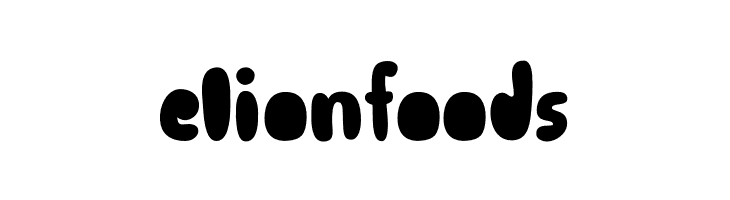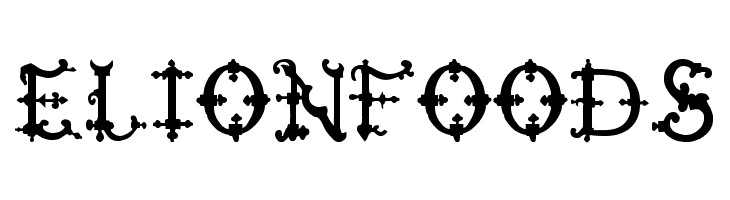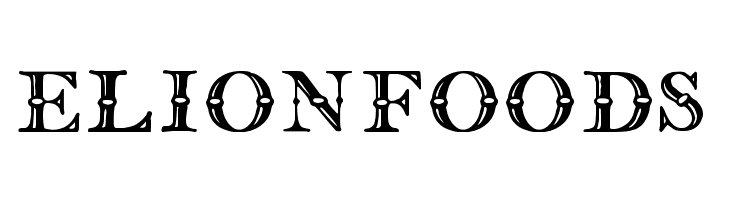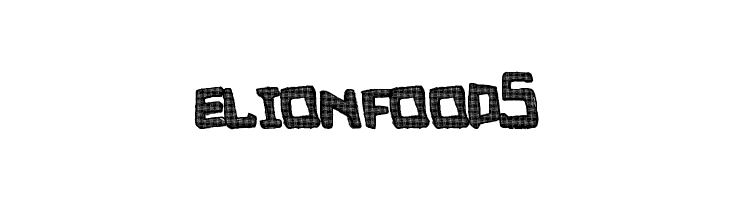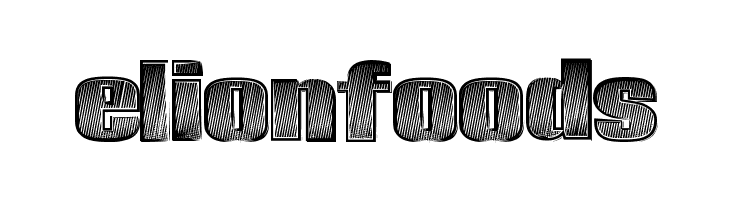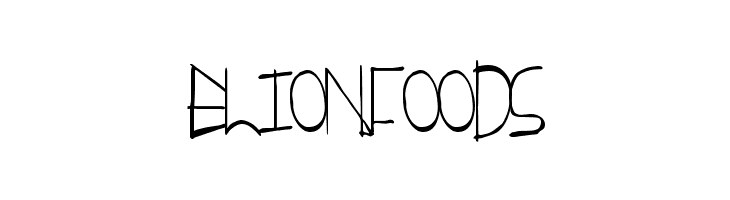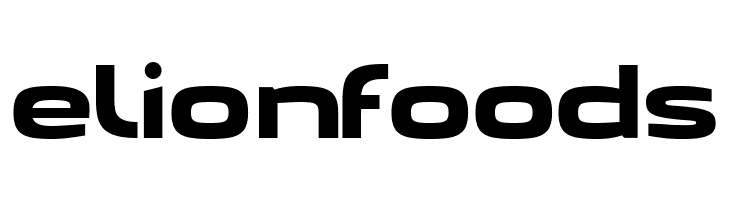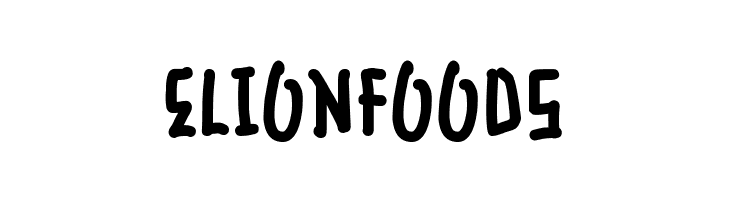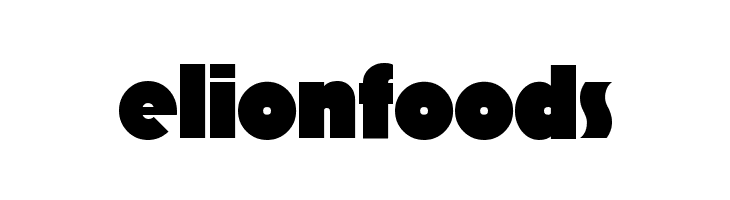
A hand-drawn, modern font with elongated, playful characters and geometric elements.
An ornate, Elizabethan-style decorative font with intricate flourishes.
A bold, playful handwritten font with thick strokes and a casual style.
A bold, modern font with geometric shapes and consistent stroke width.
A bold, textured font with a hand-drawn, crosshatched style.
A bold, geometric font with angular lines and a strong visual impact.
A bold, playful font with rounded, thick strokes and a whimsical touch.
A bold, rounded font with a playful and whimsical style.
A bold, textured font with a three-dimensional, energetic style.
A decorative, vintage-style font with intricate two-line detailing.